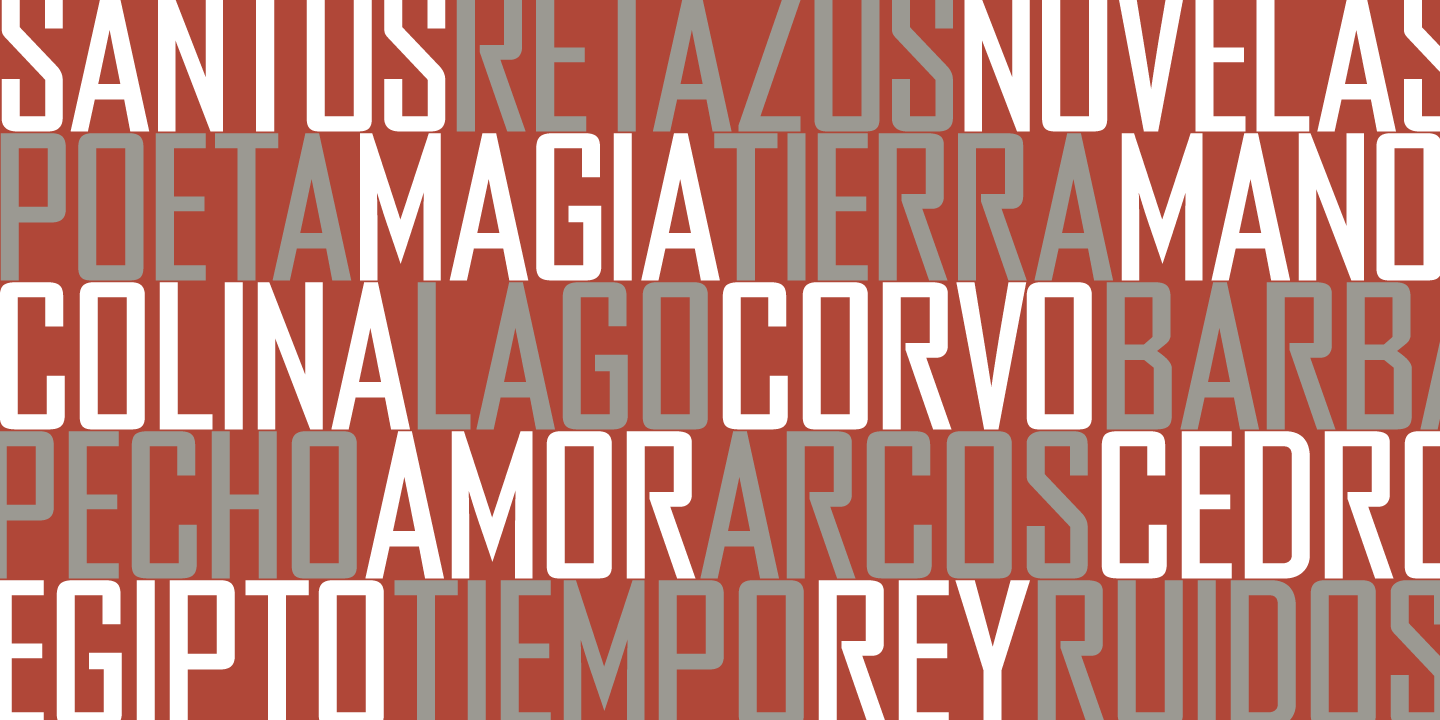
The Agency Gothic CT Font is perfectly designed for numerous high-impact applications including advertising agency branding, creative studio communications, bold poster designs, modern signage systems, fashion industry promotions, urban streetwear graphics, contemporary art exhibitions, dynamic marketing campaigns, architectural presentations, and cutting-edge editorial layouts. Its commanding character makes it particularly effective for creative agencies, design studios, fashion brands, and modern enterprises seeking to convey bold creativity, urban sophistication, and contemporary edge in their visual communications and brand presentations.
What makes the Agency Gothic CT Font extraordinarily exciting is its perfect balance of geometric boldness and refined sophistication combined with contemporary design innovation. This striking typeface captures the essence of modern creative culture while incorporating professional typographic principles that ensure optimal performance across today's diverse media landscape. The font's captivating character emerges from its strong geometric construction, confident proportions, and carefully crafted details that create a sense of creative authority and urban cool, making it perfect for brands seeking to establish distinctive identity and appeal to design-conscious, style-aware audiences.
The Agency Gothic CT Font family encompasses multiple weights and styles designed to provide comprehensive creative branding solutions. The collection typically includes light, regular, medium, bold, and black weights, with many versions offering dynamic condensed variants that enhance the font's versatility and space-saving capabilities. Some editions may include extended versions, stylistic alternates, and contemporary design elements that provide additional creative options for developing unique typographic treatments and modern brand applications.
Creative professionals and agency designers consistently choose the Agency Gothic CT Font Free Download for its exceptional impact and versatile performance. The font features optimized spacing and kerning that ensures clear readability across various applications, from small business cards to large outdoor advertising displays. Its robust construction maintains its distinctive character in both digital and print environments, while the comprehensive character set includes uppercase and lowercase letters, numerals, punctuation marks, and special symbols, along with extensive language support for international creative projects and global agency communications.
The Agency Gothic CT Font represents the pinnacle of contemporary creative typography, combining artistic boldness with professional reliability. Its modern aesthetic commands attention while maintaining the sophistication required for serious creative business applications. The font's remarkable adaptability allows it to work effectively in both minimalist agency contexts and complex, graphic-heavy campaigns, ensuring consistent creative impact across agency websites, portfolio presentations, creative materials, and bold advertising campaigns.
Make a bold creative statement with the dynamic energy and professional sophistication of the Agency Gothic CT Font, the ultimate choice for contemporary creative typography excellence.